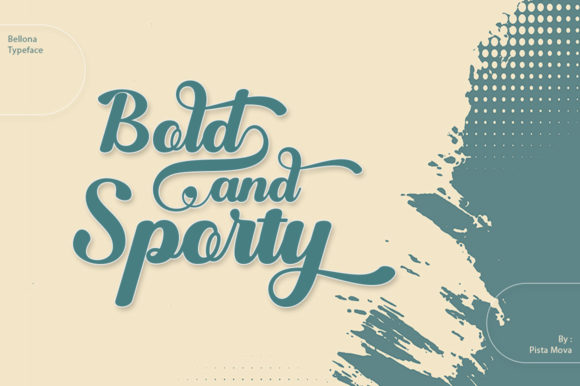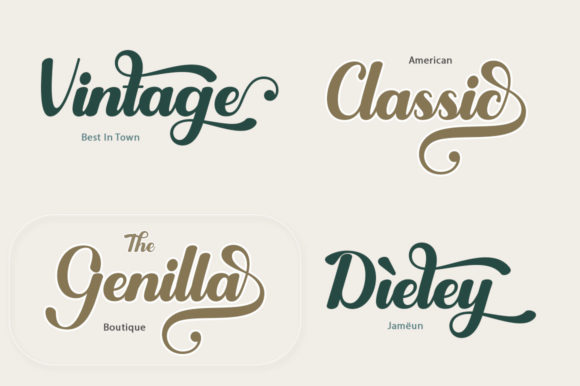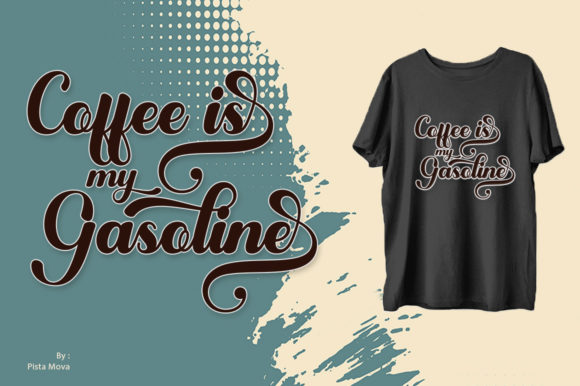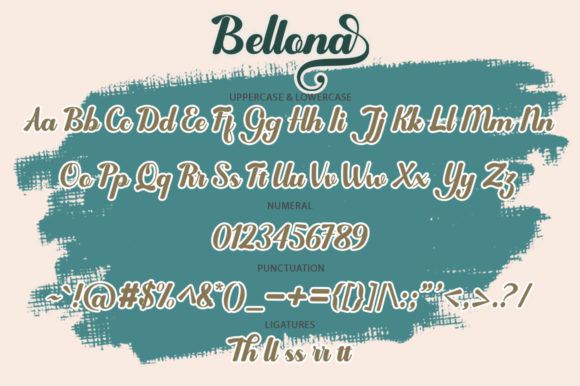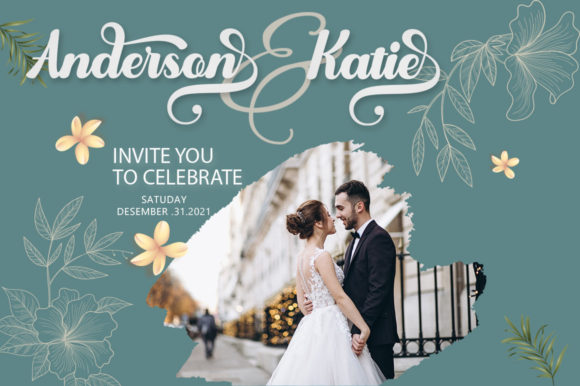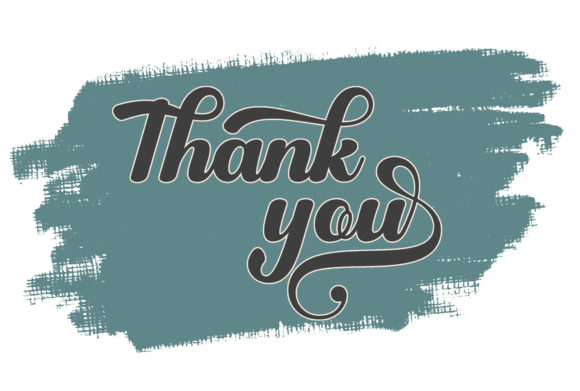
Introduction to Bellona Font
As a designer, there’s nothing quite like the thrill of discovering a new font that perfectly captures the essence of a creative project. For me, that moment came when I stumbled upon the Bellona Font – a stunning, elegant typeface that instantly elevates any design to the next level. Whether you’re crafting wedding invitations, thank you cards, or logos, Bellona Font is sure to add a touch of sophistication and charm.
What sets Bellona Font apart is its versatility and high quality. PUA encoded, this font allows designers to access a wide range of glyphs and ligatures with ease, making it a valuable resource for any creative project. With its transparent background and free download option, Bellona Font is a game-changer for designers looking to take their designs to the next level.
Key Features of Bellona Font
- High-quality design resource ideal for creative projects, with a unique, elegant style.
- Unique characteristics include a sophisticated, classic feel and a range of subtle nuances in letterform design.
Honest Review: Bellona Font
As a designer, I’m always on the lookout for high-quality design resources to elevate my creative projects. The Bellona Font caught my attention with its elegant and sophisticated design.
Here are some things that I like about the Bellona Font: ✨
- It has a beautiful, clean design that is perfect for headings and titles.
However, I did encounter a few limitations with the Bellona Font: ⚠️
- The font is not suitable for body text, as it can be a bit too ornate and overwhelming.
- The font is not as versatile as some other fonts, which may limit its use in certain design projects.
Overall, I’m impressed with the Bellona Font. It’s a high-quality design resource that is perfect for adding a touch of elegance to my creative projects. While it may have some limitations, I think it’s well worth the free download. I would definitely recommend it to other designers looking for a sophisticated font.
Tips for Getting the Most Out of Bellona Font
Bellona Font is ideal for various design projects, including:
- Posters and advertisements